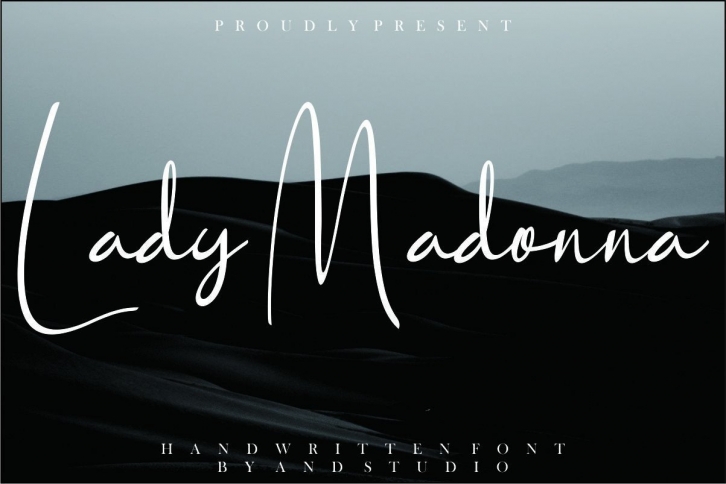
Lady Madonna feels charming and elegant. It looks stunning on wedding invitations, thank you cards, quotes, greeting cards, logos, business cards, and any other design that requires a handwritten touch.